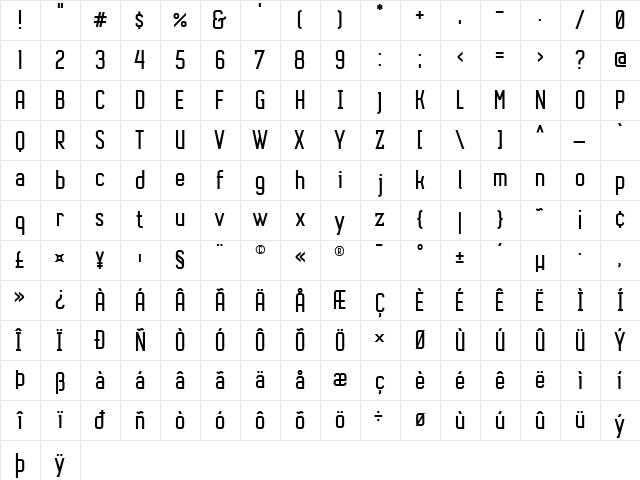
Autobus Bold Regular
Design Context for Autobus Bold Typeface
Autobus Bold is a composed and adaptable typeface that performs quietly and consistently across a wide range of design contexts. The heavy weight commands attention and anchors typographic hierarchies.
Pro Tip: Pair Autobus Bold with a font of contrasting weight or personality to build a more expressive typographic hierarchy.